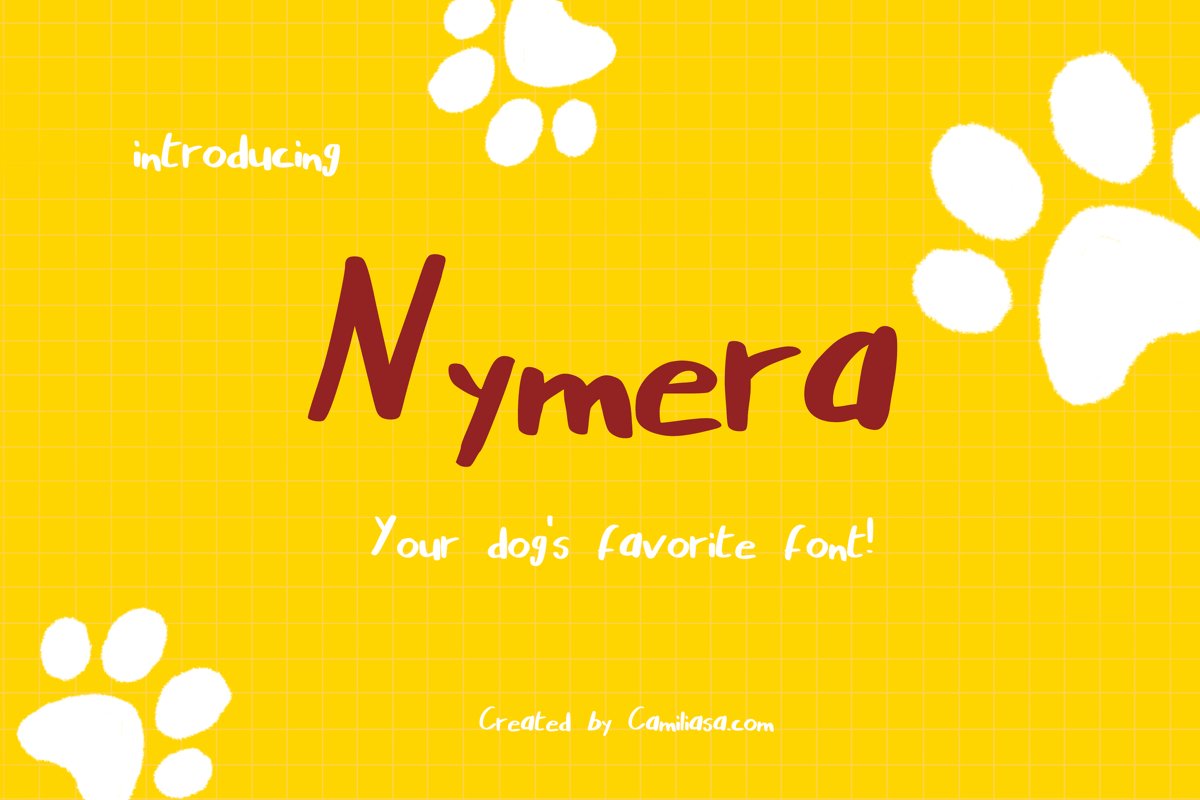
Nymera - A nice and bold handwritten script font !
Nymera
celebrates all things dog. It will add a lovely twist to any design project ! Get inspired by its
cozy handmade feel
This font will bring a "handmade" touch to your creative designs !